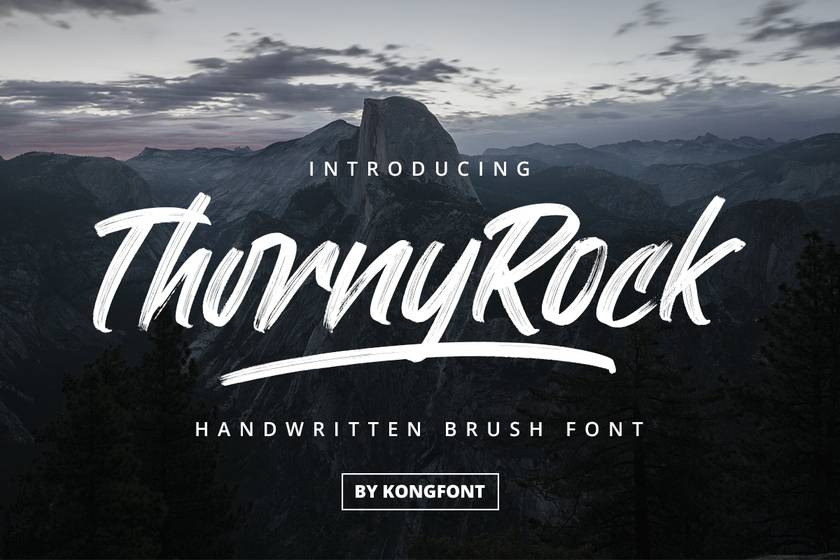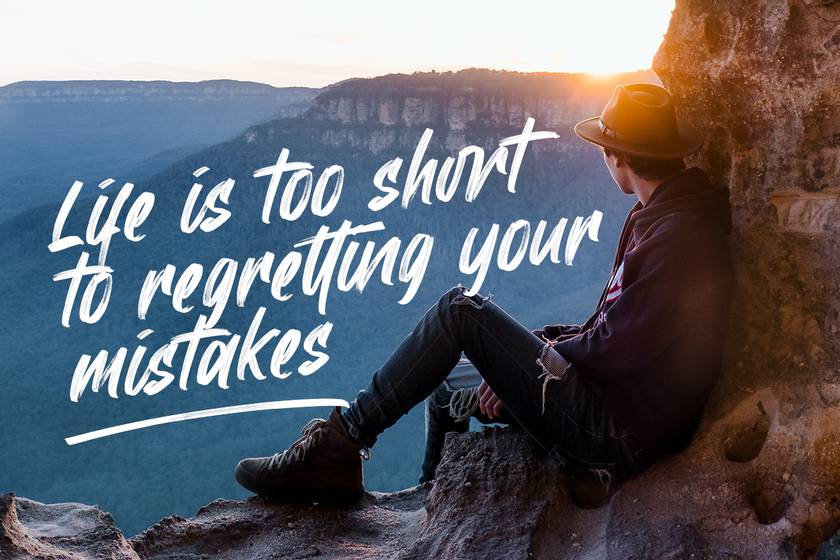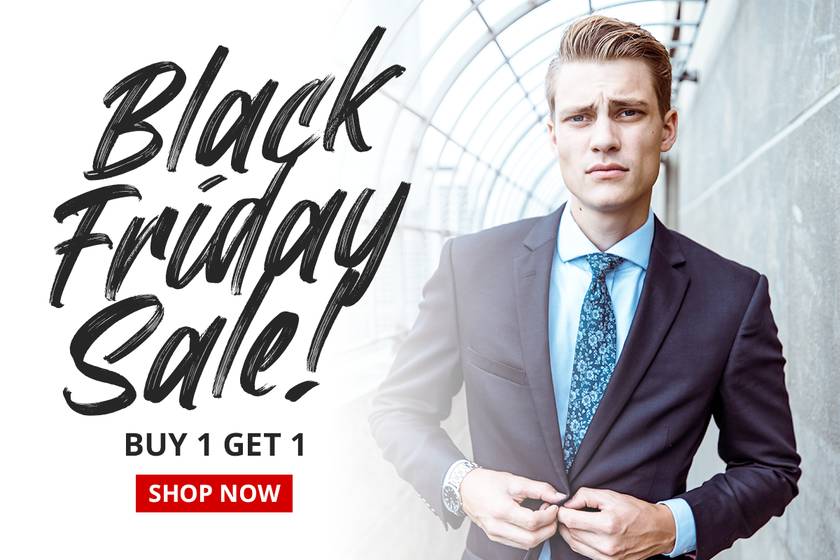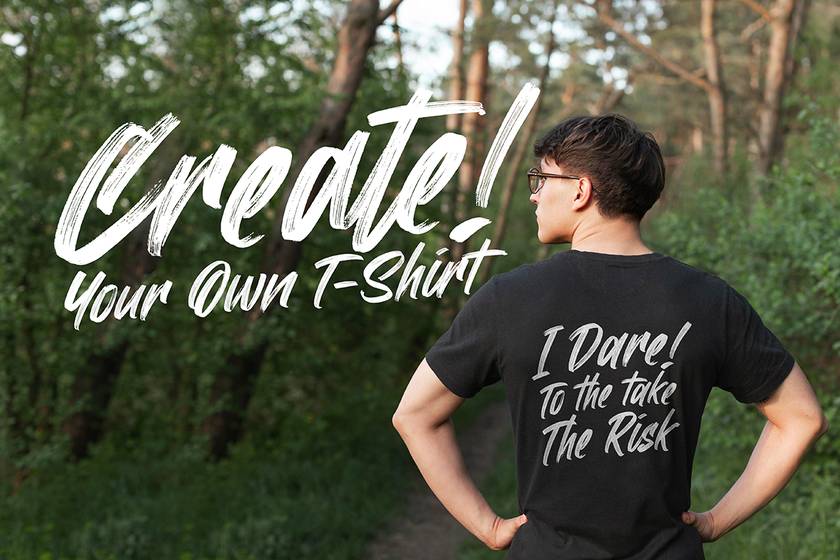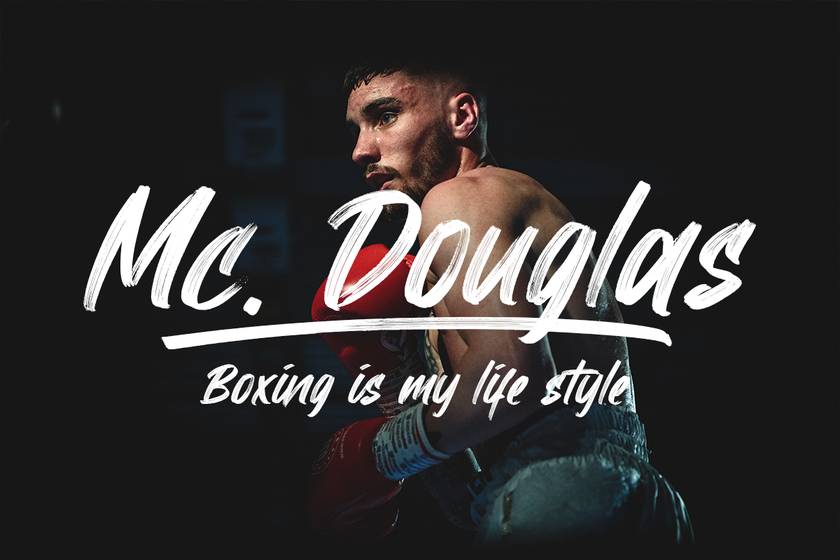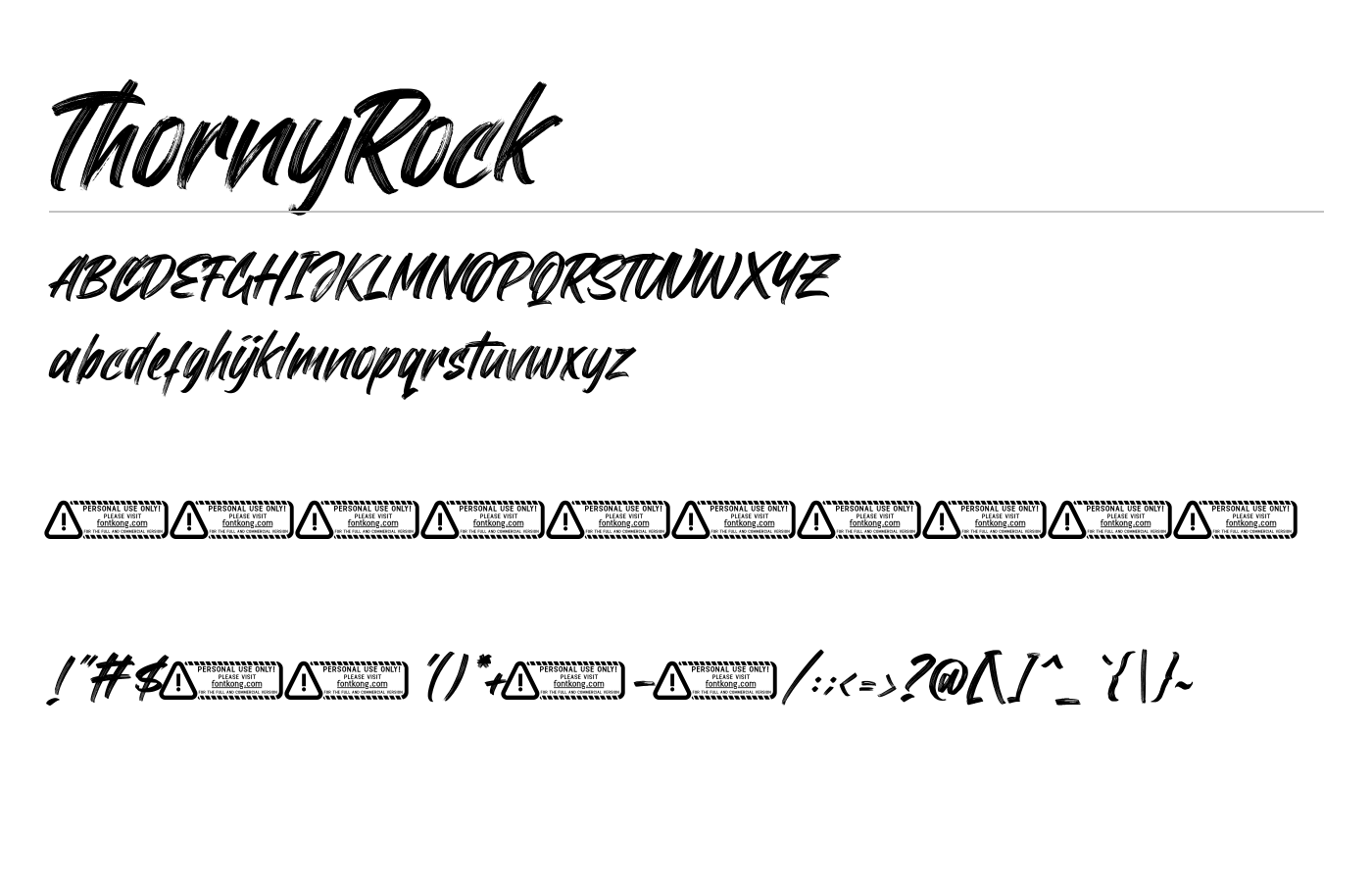
Thorny Rock is a bold, expressive script font with a dynamic, hand-painted style characterized by sharp, textured strokes that evoke energy and creativity. Its slightly condensed letterforms and lively brush-like texture give it a raw, edgy personality perfect for brands or projects aiming for a rebellious, artistic, or modern vibe. This font shines in eye-catching headlines, logos, posters, and designs that benefit from a strong, personal touch.
Thorny Rock Font
About Thorny Rock Font